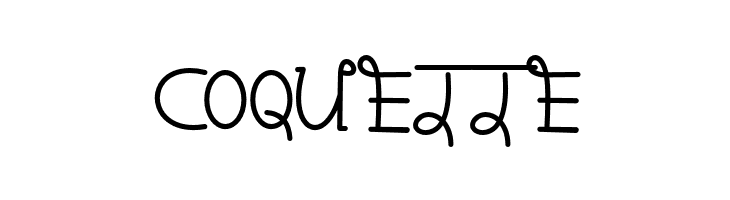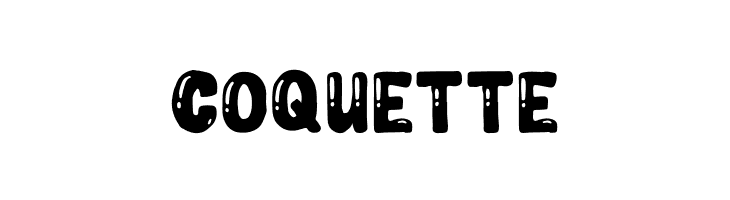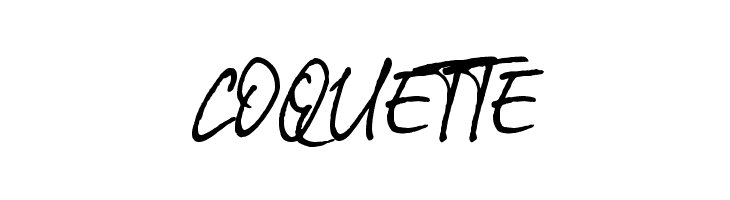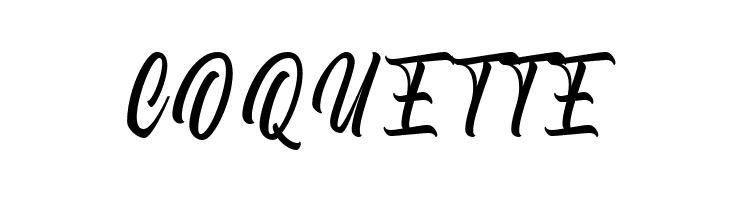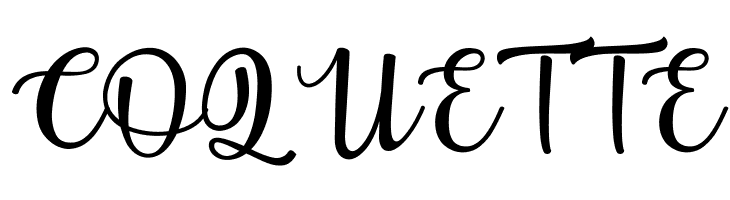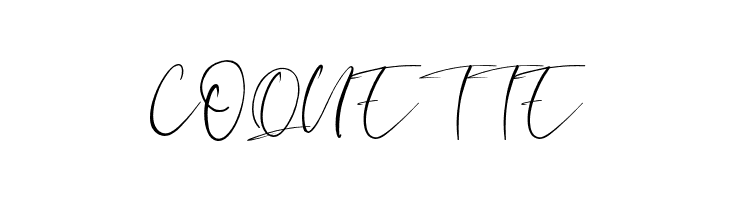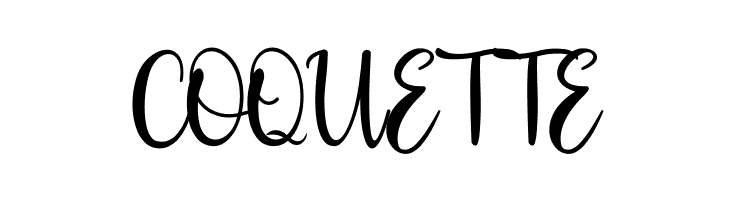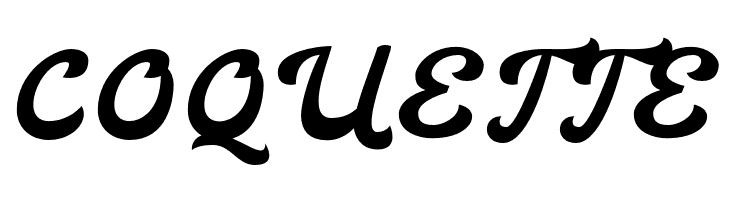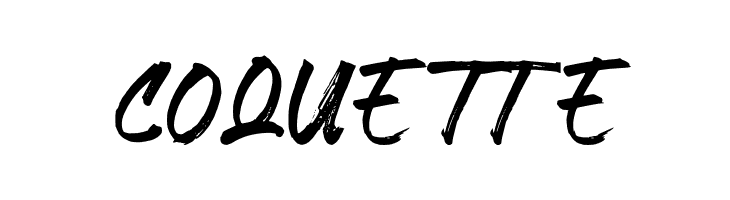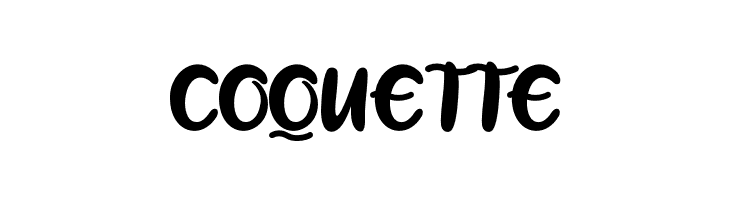
A bold, playful font with rounded edges and decorative cutouts.
A bold, playful handwritten font with flowing, cursive strokes.
A lively and flowing script font with elegant curves and smooth connections.
A bold, brush-style font with a hand-painted, expressive appearance.
An elegant and fluid script font with graceful curves and delicate strokes.
A dynamic, cursive script font with a natural, handwritten style.
A bold, brush-style font with dynamic, expressive strokes.
A bold, dynamic brush script font with expressive strokes.
A bold, expressive handwritten font with dynamic brush strokes.
A bold, brush-style font with dynamic, hand-painted strokes.
A playful, bold font with rounded, hand-drawn characters.
A hand-drawn, sketch-like font with a playful and artistic style.
A lively and flowing script font with elegant, interconnected letters.
A playful and elegant script font with a handwritten style.
A bold, playful handwritten font with rounded, expressive strokes.
A playful, casual handwritten font with an informal, organic style.
A playful, thin, handwritten font with a casual and friendly style.
A bold, geometric font with a futuristic and modern design.
A playful, cursive font with elegant loops and smooth flow.
A bold, playful script font with thick, rounded strokes and close character spacing.
A bold, brush-style font with dynamic, expressive strokes.
A bold, brush-style font with an energetic and artistic flair.
A bold, brush-style font with dynamic, hand-painted strokes.
A modern, handwritten font with a casual and artistic style.
A playful, hand-drawn font with whimsical loops and curves.
A playful, handwritten font with bold, rounded characters and a casual, friendly appearance.
An elegant, flowing script font with graceful cursive letterforms.
A dynamic and flowing script font with elegant cursive letterforms.
A playful, bold font with a hand-drawn, bubbly style and whimsical cut-out details.
A lively and elegant script font with flowing, cursive letters and dramatic flourishes.
A playful, handwritten font with flowing, connected letterforms and medium contrast.
A bold, playful script font with smooth, flowing curves.
A playful, handwritten font with a smooth, flowing style.
A bold, cursive script font with smooth, connected strokes.
A lively and dynamic script font with flowing, connected letterforms.